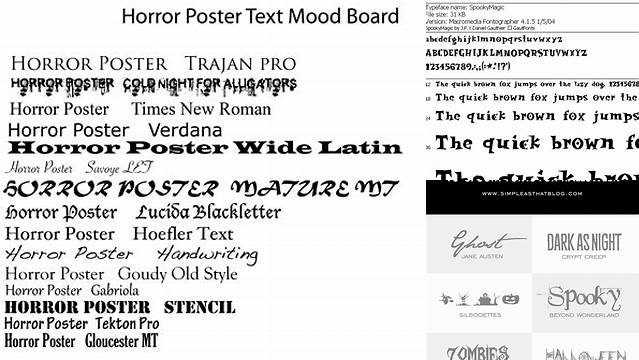
Spooky Fonts: MS Word For Horror Designs
Hey guys! Want to give your documents a seriously spooky vibe? You've landed in the right place. We're diving deep into the world of horror fonts in MS Word, so you can create bone-chilling designs right from your favorite word processor. Think Halloween invitations, scary stories, or even just a fun, themed document for your next party. Let's get started and turn your text into something truly terrifying!
1. Understanding Horror Fonts
So, what exactly makes a font a horror font? It's not just about being scary, it's about evoking a certain feeling, a sense of unease, or even outright terror. Horror fonts in MS Word often feature jagged edges, drippy effects, distressed textures, or resemble handwriting scrawled in blood (yikes!). They play on our primal fears and can be incredibly effective in grabbing attention. When you're choosing horror fonts, think about the overall mood you want to create. Is it suspenseful, shocking, or something else entirely? The font you pick can make or break the impact of your message. You might even want to consider fonts that have an almost broken or incomplete appearance to really add to the unsettling effect. Different styles of horror fonts evoke different emotions, and understanding this is the first step to using them effectively in MS Word.
2. Top 10 Horror Fonts for MS Word
Alright, let's get to the good stuff! Here's a roundup of ten fantastic horror fonts you can use in MS Word to make your projects scream (pun intended!). These range from the classically creepy to the more subtly unsettling, giving you plenty of options to play with. Each font has its own unique character, so experiment and see which one fits your project the best.
- Creepster: This one's a classic! It's got that drippy, melting look that just screams horror movie title sequence. Perfect for Halloween invites or spooky story headers. The thick strokes and uneven lines make it instantly recognizable and attention-grabbing. You can easily download and install this horror font for use in MS Word.
- Nosferatu: Inspired by the iconic vampire film, this font is elegant yet sinister, with sharp serifs and a subtly unsettling feel. It's a great choice if you want something a bit more sophisticated but still definitely spooky. The elongated serifs and dramatic curves make it stand out on the page.
- Bloodlust: The name says it all, right? This font looks like it's been scrawled in blood, making it perfect for the most gruesome of projects. Use it sparingly, though – a little goes a long way! It's a powerful and visceral horror font.
- YouMurderer: Another font with a killer name (sorry, couldn't resist!). This one's got a more handwritten, almost frantic feel, perfect for creating a sense of urgency and dread. It's ideal for creating suspenseful documents or adding a touch of realism to your horror font text.
- Midnight Terror: This font brings a sense of dread to your document. It features sharp, jagged edges that evoke fear and anxiety, making it ideal for horror-themed content. The design captures the essence of suspense, adding an eerie touch to your text in MS Word.
- Frankenstein: Inspired by the classic monster, this font is bold and blocky, with a slightly rough-around-the-edges feel. It's instantly recognizable and perfect for adding a touch of classic horror to your work. The chunky letters give it a strong presence.
- Graveclaw: This font has a truly menacing look, with sharp, claw-like serifs that give it a dangerous edge. It's perfect for creating titles and headings that really grab attention.
- Vampire Diaries: While the name might evoke a certain teen drama, this font actually has a lovely, elegant yet slightly gothic feel. It's a great choice if you want something a bit more refined but still with a touch of darkness. The graceful curves and sharp angles create a sophisticated look.
- Evil Dead: A tribute to the cult classic horror film, this font is gritty and raw, with a DIY feel. It's perfect for projects that need a touch of visceral horror.
- Blackwood Castle: This font is majestic and haunting, reminiscent of old horror movie posters. The strong serifs and slightly distressed texture make it perfect for creating a sense of classic gothic horror. It's great for titles and headings that need a touch of vintage spookiness.
Remember, these are just a few examples. There are tons of horror fonts in MS Word out there, so explore and find the perfect one for your project!
17. The Psychology of Horror Fonts
Have you ever stopped to think about why certain fonts feel